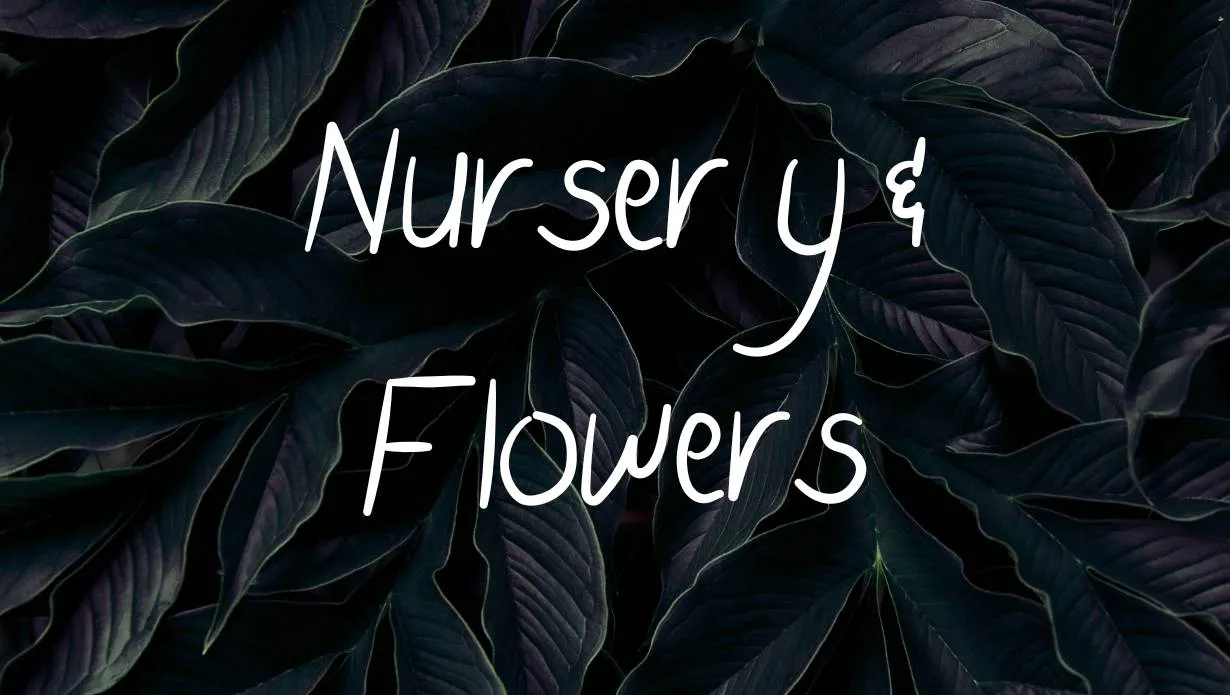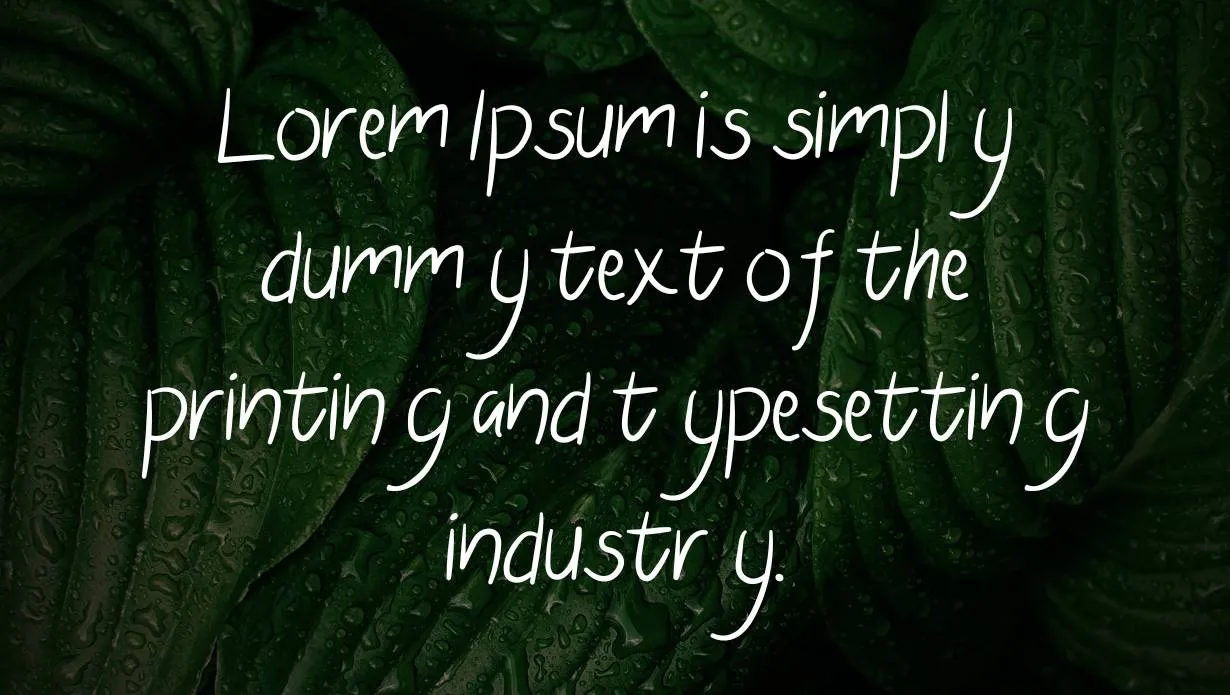
An Indonesian graphic designer named Aditya Widodo created the Cintaku font. In the Indonesian language the word “cinta” means love. It is included in a hand-written, script font style. This font style contains a long and stylish design.
The alphabets in this font have a unique shape. They are simple letters but have a styling shape. It makes them different from others on the basis of their writing style. This font style contains a tremendous look and attraction within itself. This font involves numbers, punctuations mark with upper and lower-class letters.